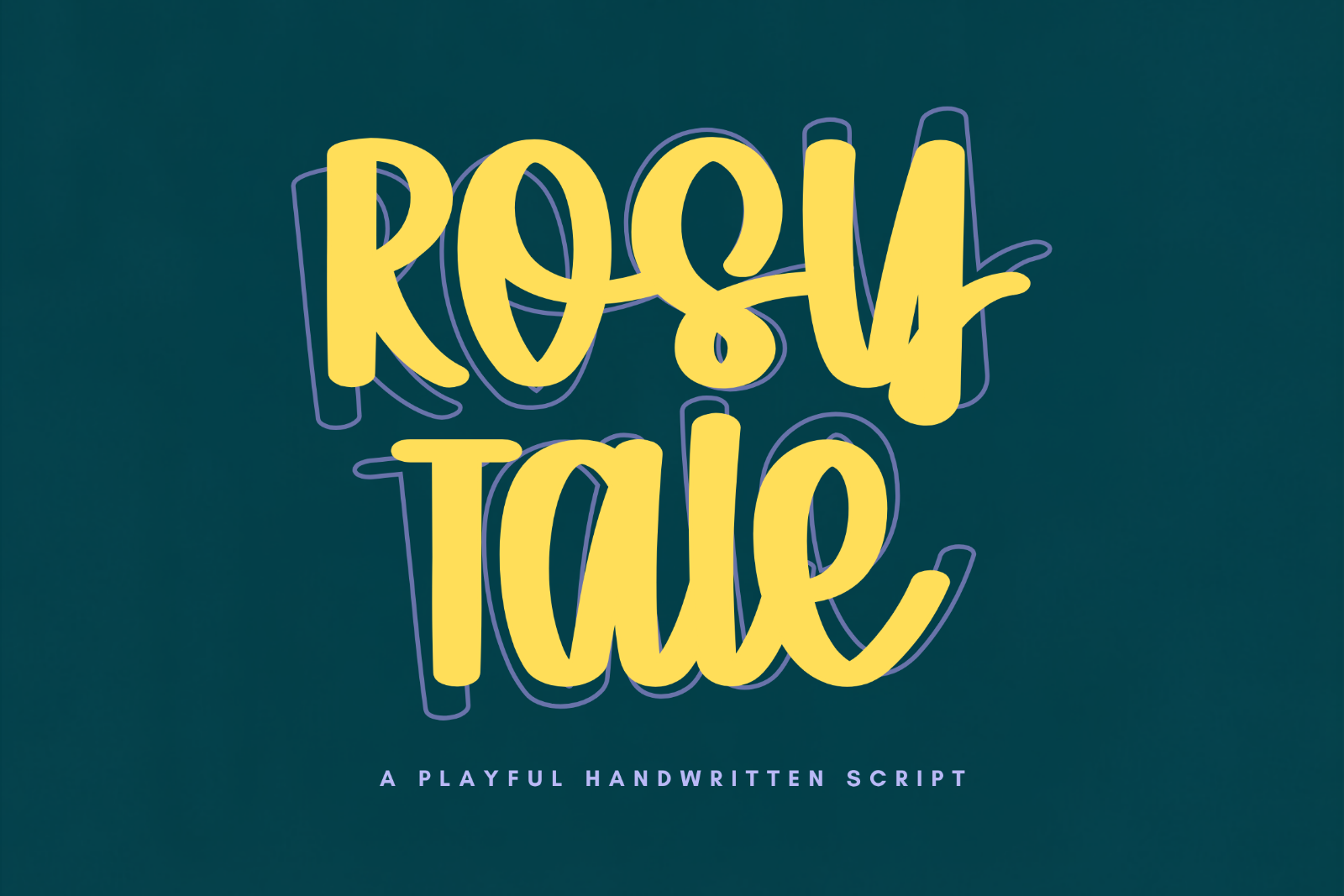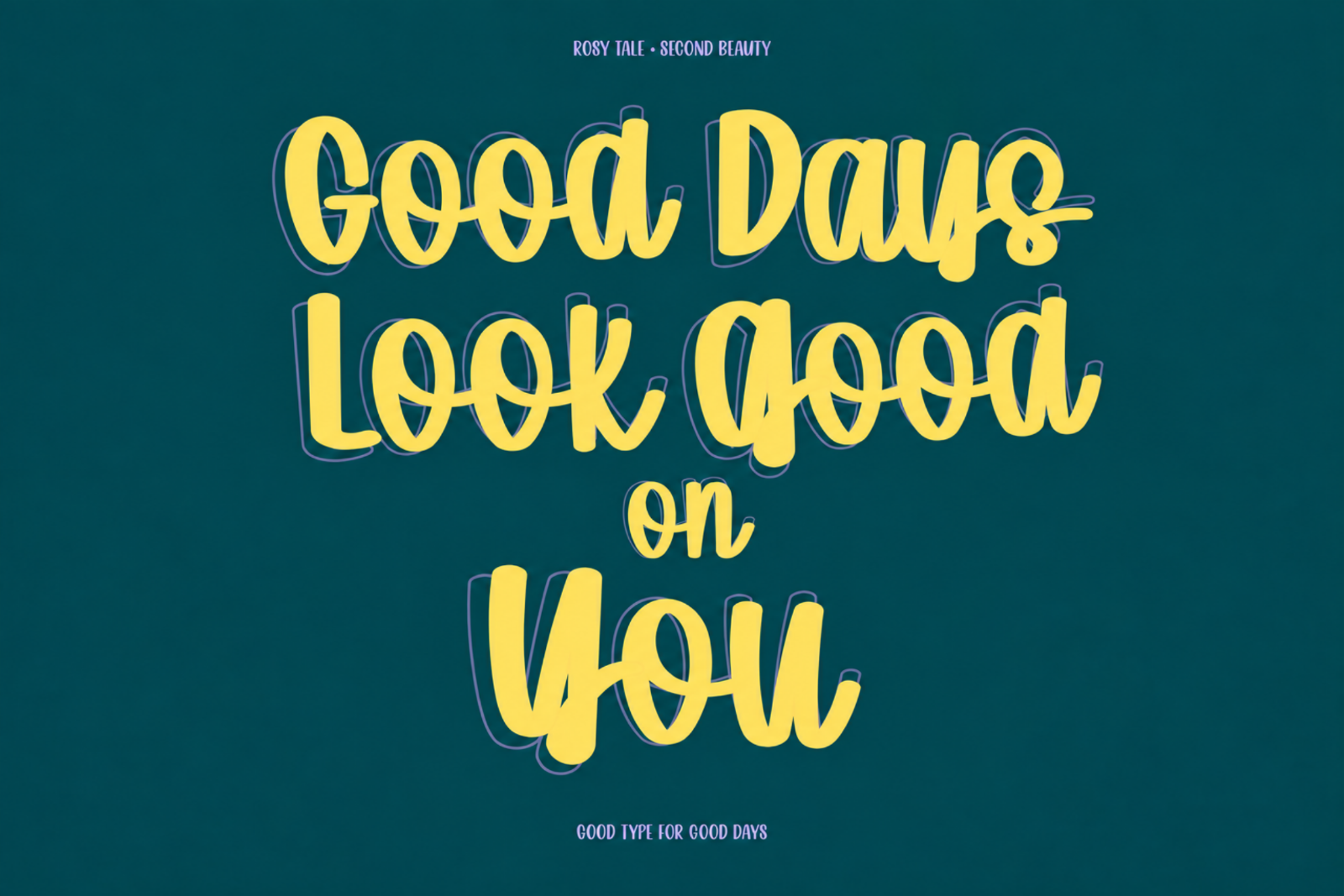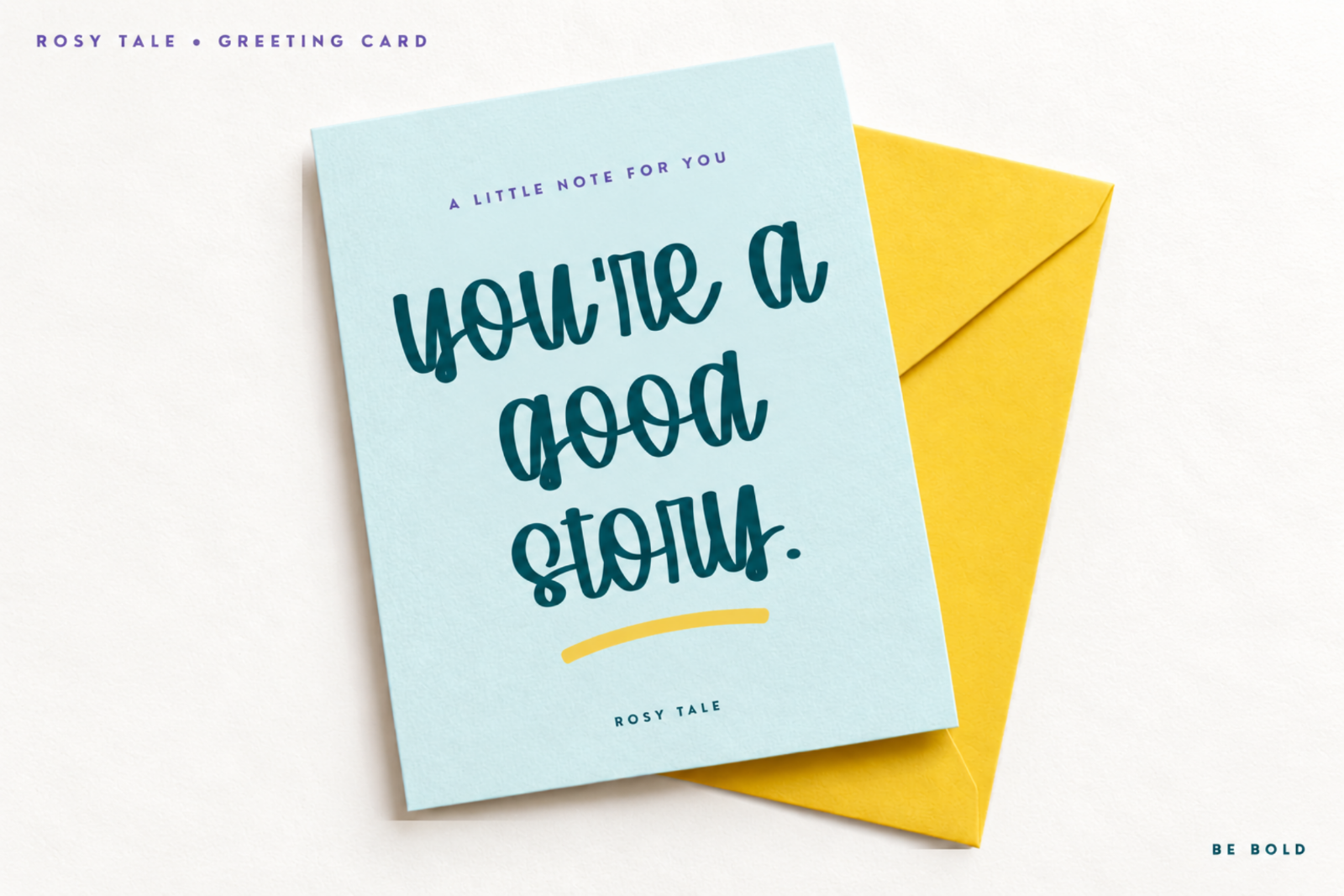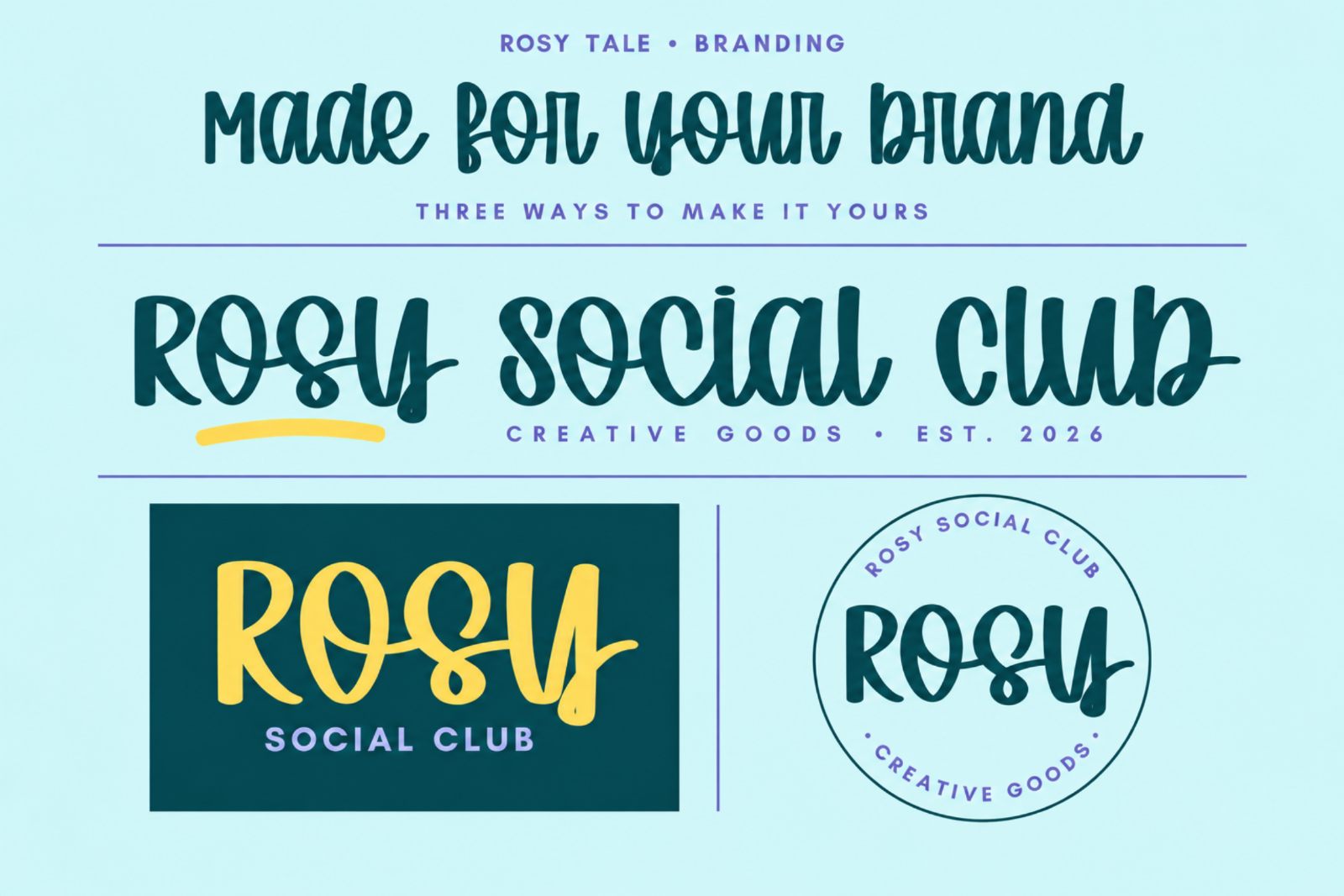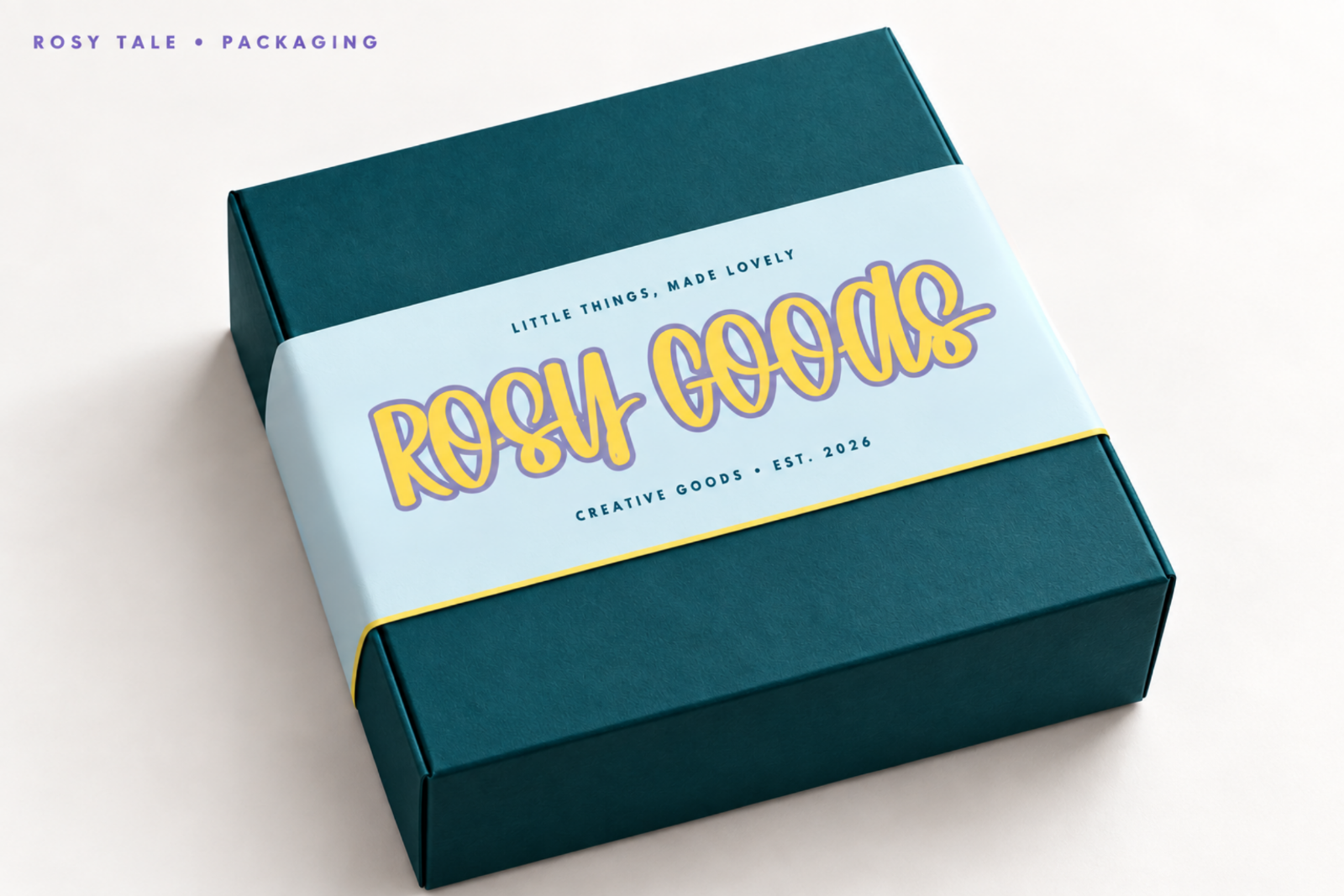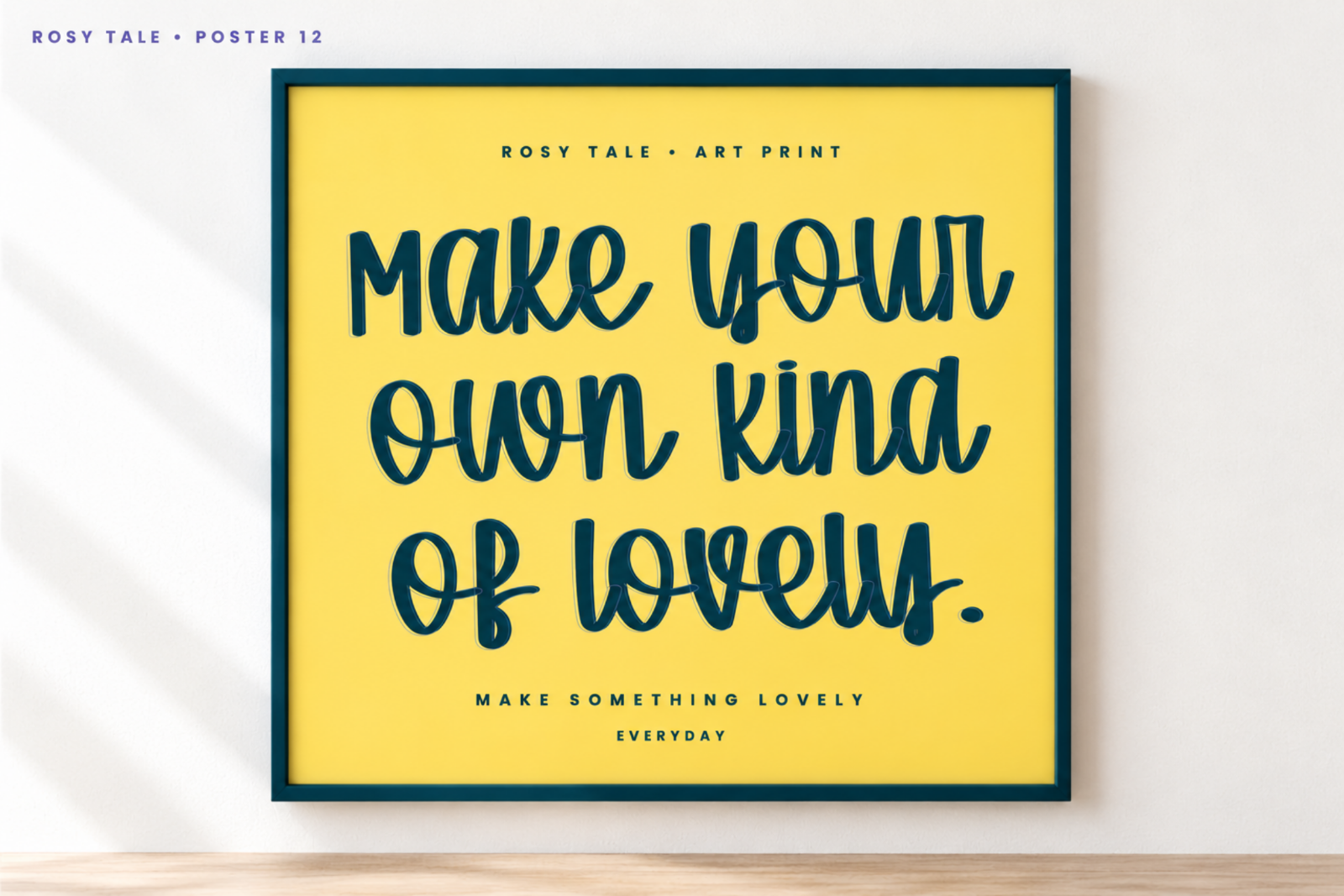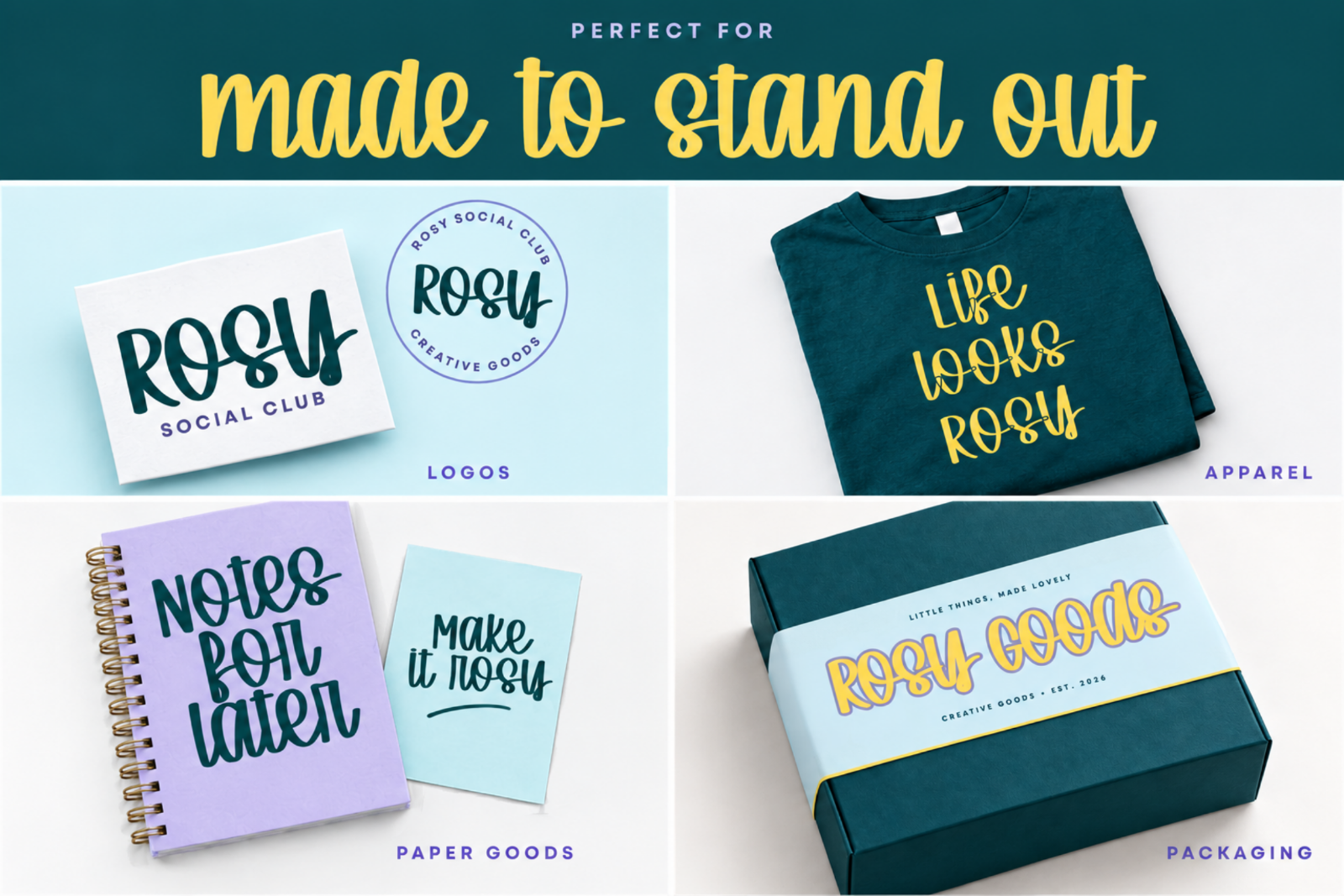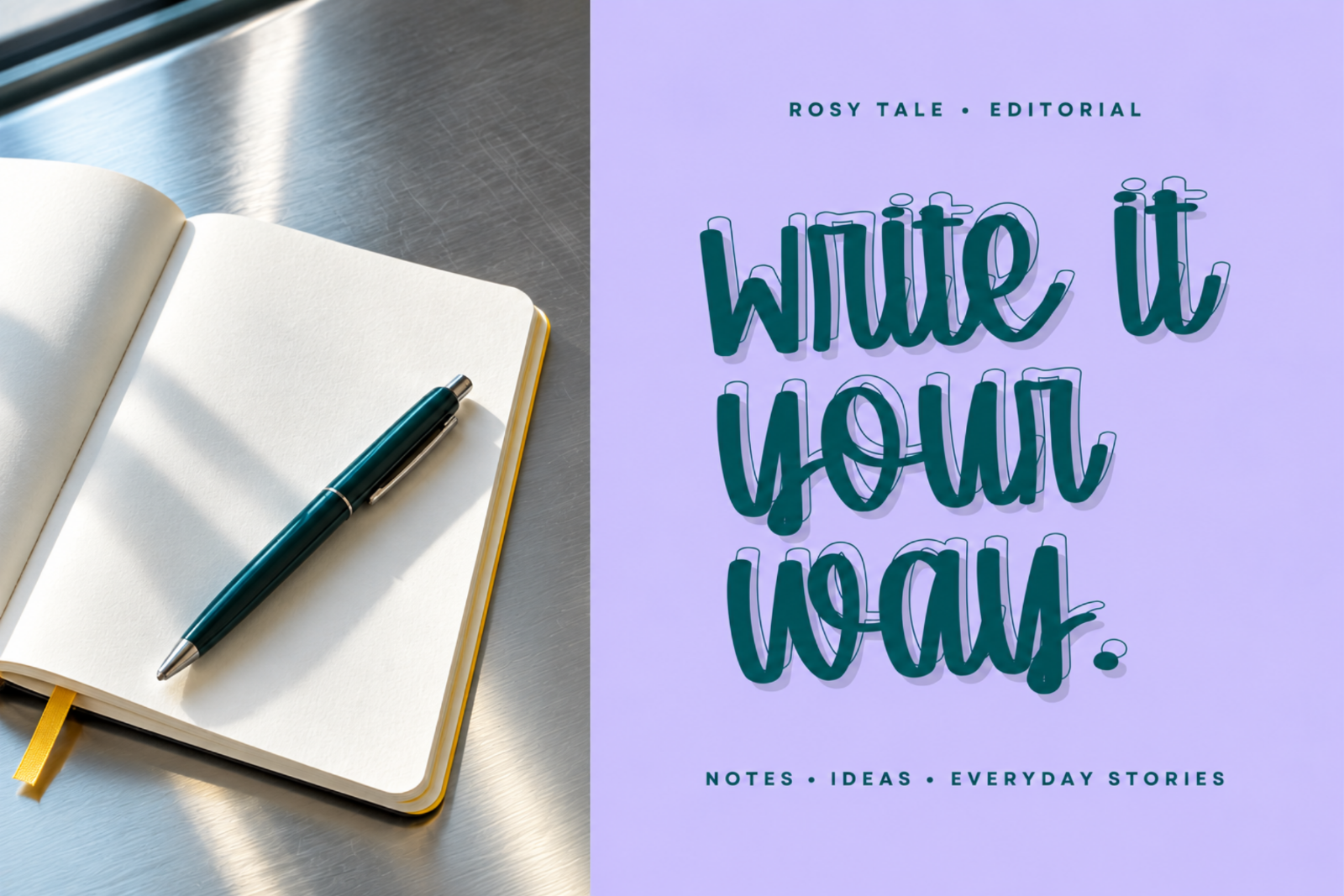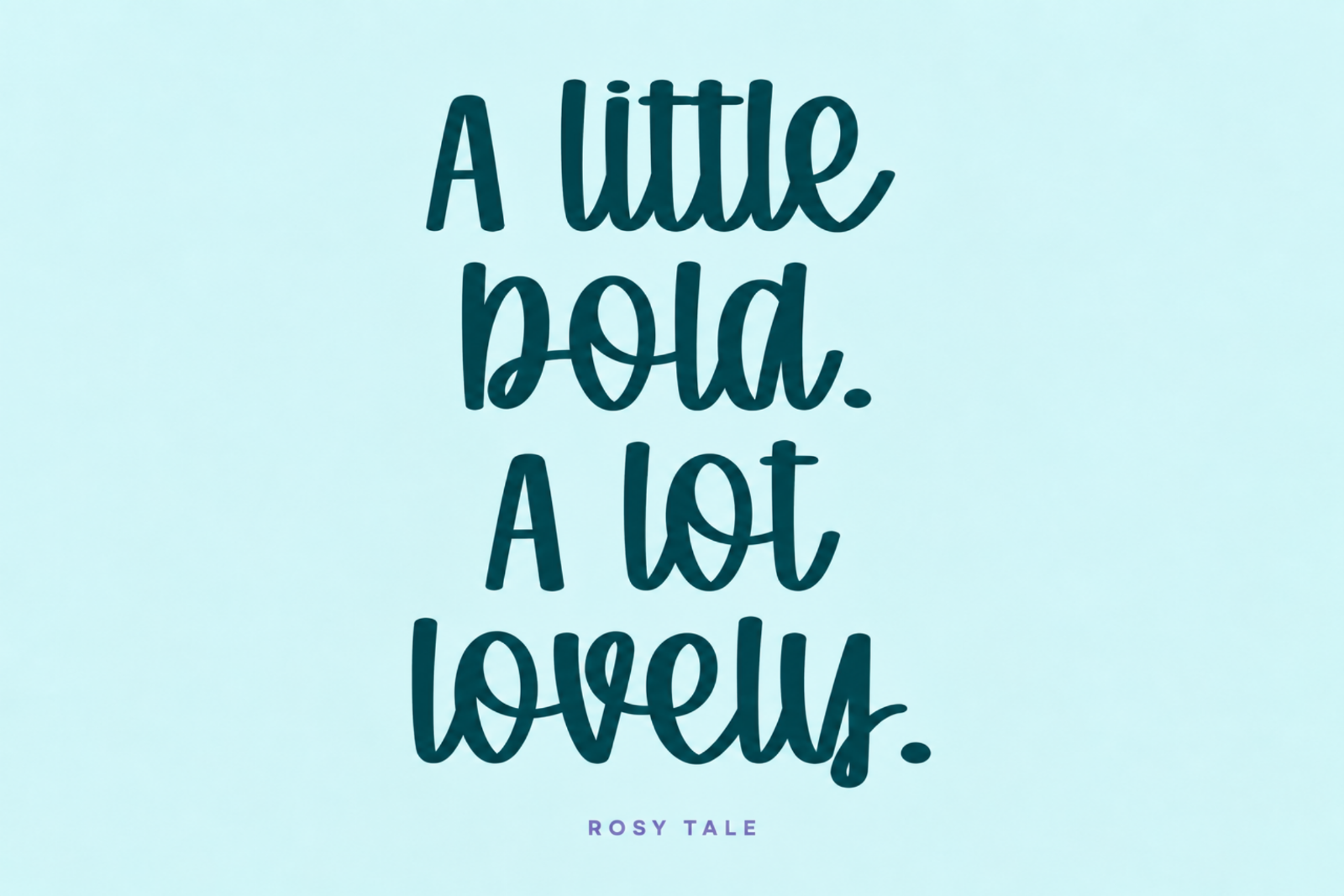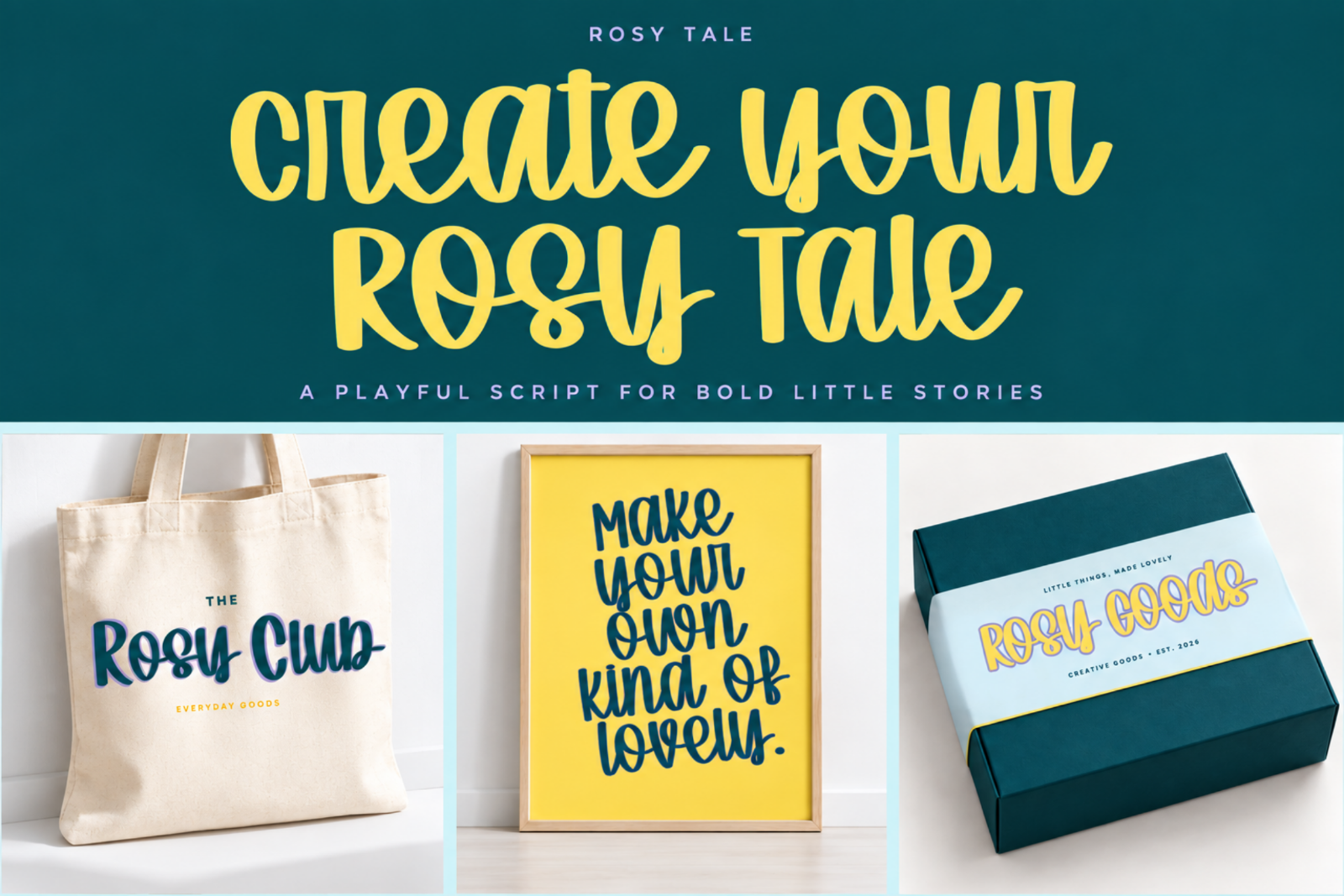
Rosy Tale — Playful Handwritten Script Font for Cricut, Logos & Branding
Rosy Tale is a bold and playful handwritten script font filled with tall letters, smooth curves, expressive loops, and a friendly hand-lettered personality.
Designed to stand out without feeling overly formal, Rosy Tale is perfect for eye-catching words, cheerful quotes, creative branding, and everyday products that need a warm handmade touch.
Its bold connected letterforms work especially well at larger sizes, making it a lovely choice for:
• Logo and brand identity design
• Cricut and Silhouette projects
• T-shirts, tote bags, mugs, and merchandise
• Product packaging and labels
• Stickers and decals
• Posters and quote designs
• Invitations and greeting cards
• Journaling and planner projects
• Small-business and handmade-product branding
Create something bold, playful, and full of personality with Rosy Tale.